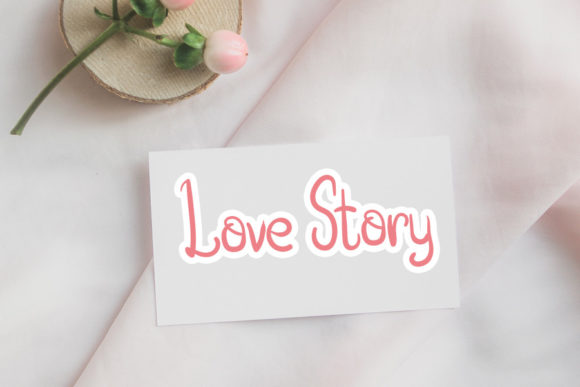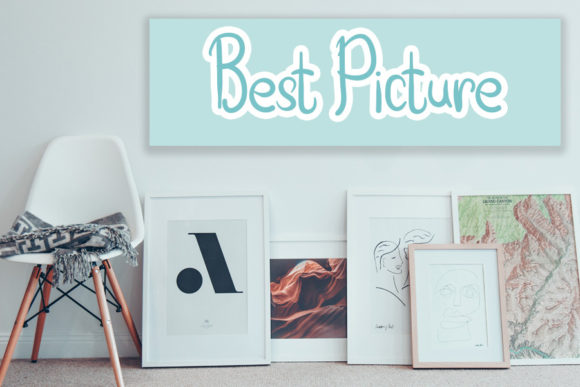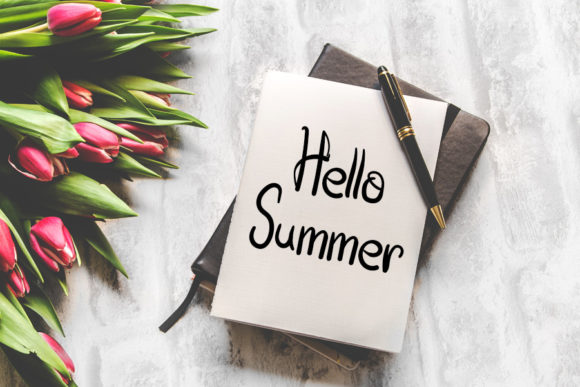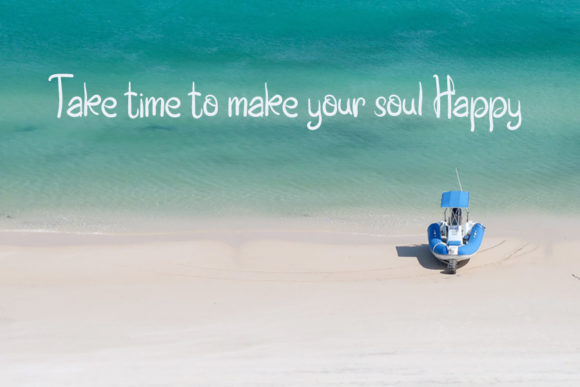
Introduction to Lets Dance Font
Do you remember that moment when you’re working on a creative project and you’re stuck on finding the perfect font? The one that brings your ideas to life, makes them pop, and leaves a lasting impression? I’m sure many designers can relate to this feeling.
For me, that moment came when I discovered the Lets Dance Font. Its unique style and playful charm instantly caught my attention, and I knew I had to learn more about it. With its transparent background and high-quality design, this font is a valuable resource for any designer looking to elevate their creative projects.
As a design enthusiast, I’m excited to share my findings about the Lets Dance Font, and how it can be used to add a touch of personality to your designs. Whether you’re a seasoned pro or just starting out, this font is sure to become a trusted companion in your creative journey.
Key Features of Lets Dance Font
- High-quality, elegant design perfect for creative projects and events, with a transparent background allowing for versatility in usage.
- Font size: 72 points ( scalable), with a resolution of 300 DPI, ensuring crisp and clear readability in various applications.
- Unique, hand-drawn style with a touch of sophistication, ideal for wedding invitations, party decorations, and other celebratory events.
- Can be easily customized to fit various design themes and styles, making it a valuable addition to any design collection.
- Perfect for use in digital and print projects, including social media graphics, posters, and flyers.
Honest Review: Lets Dance Font
As a designer, I’m always on the lookout for high-quality design resources that can elevate my creative projects. The Lets Dance Font caught my attention, and I decided to give it a try.
- Unique and playful design style that adds a touch of whimsy to any project
- High-quality glyphs and characters that are perfect for headings and titles
- Transparent background, making it easy to layer and composite with other design elements
While the Lets Dance Font is a great resource, there are a few limitations to consider:
- May not be suitable for more formal or professional projects, as it has a playful and casual tone
- Not as versatile as some other fonts, as it’s more suited for headings and titles
Overall, the Lets Dance Font is a great addition to any designer’s toolkit. Its unique design style and high-quality glyphs make it a great choice for creative projects, and the transparent background and free download make it an excellent value. While it may not be suitable for all projects, it’s definitely worth considering for your next design endeavor.
Tips for Getting the Most Out of Lets Dance Font
Experiment with different font sizes and styles to create a visually appealing design. Use the font in combination with other design elements, such as images and graphics, to create a unique and creative project.
The Lets Dance Font is ideal for use in creative projects, such as event invitations, social media graphics, and marketing materials. Its high-quality design and transparent background make it a great resource for designers and non-designers alike.